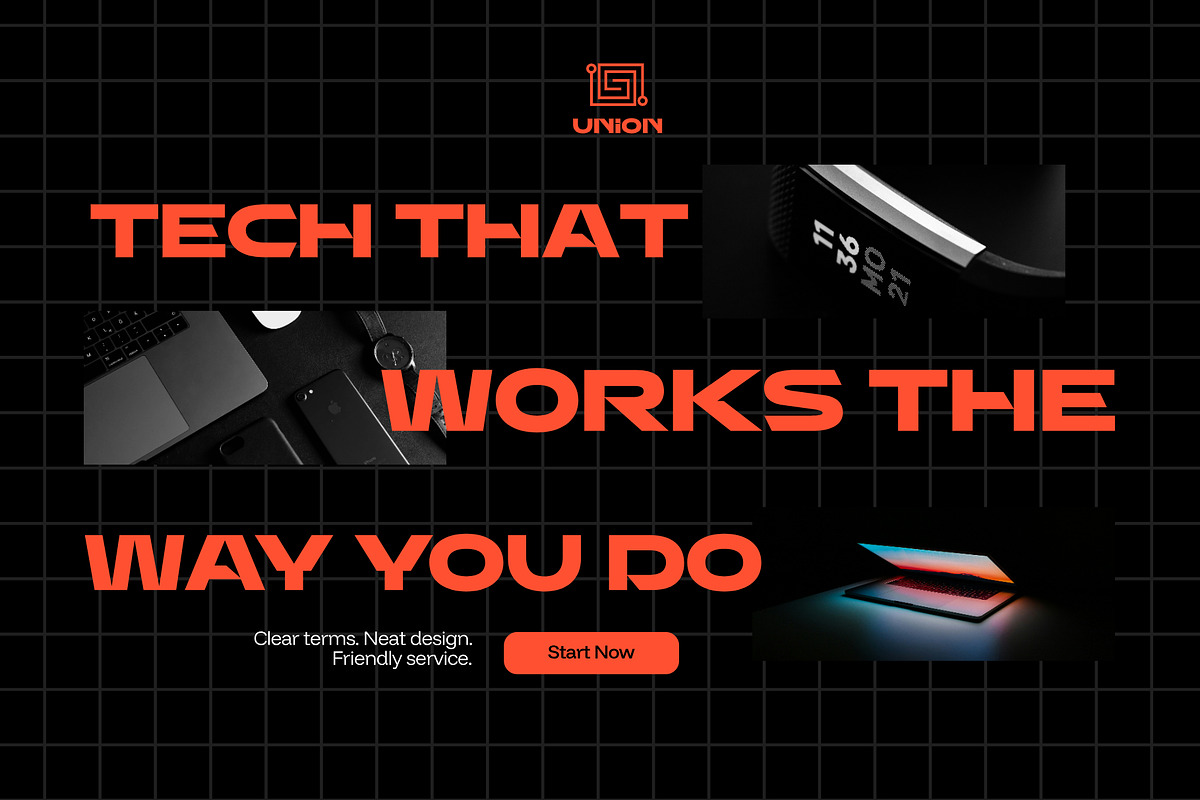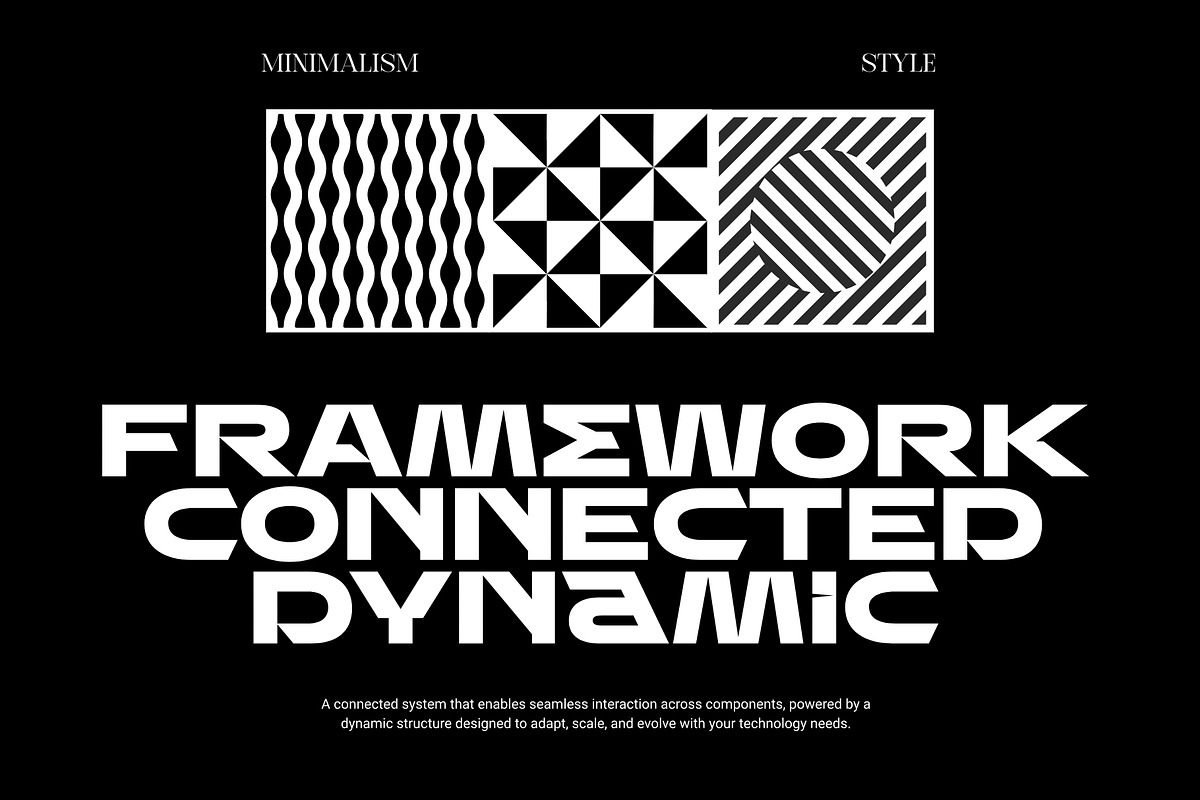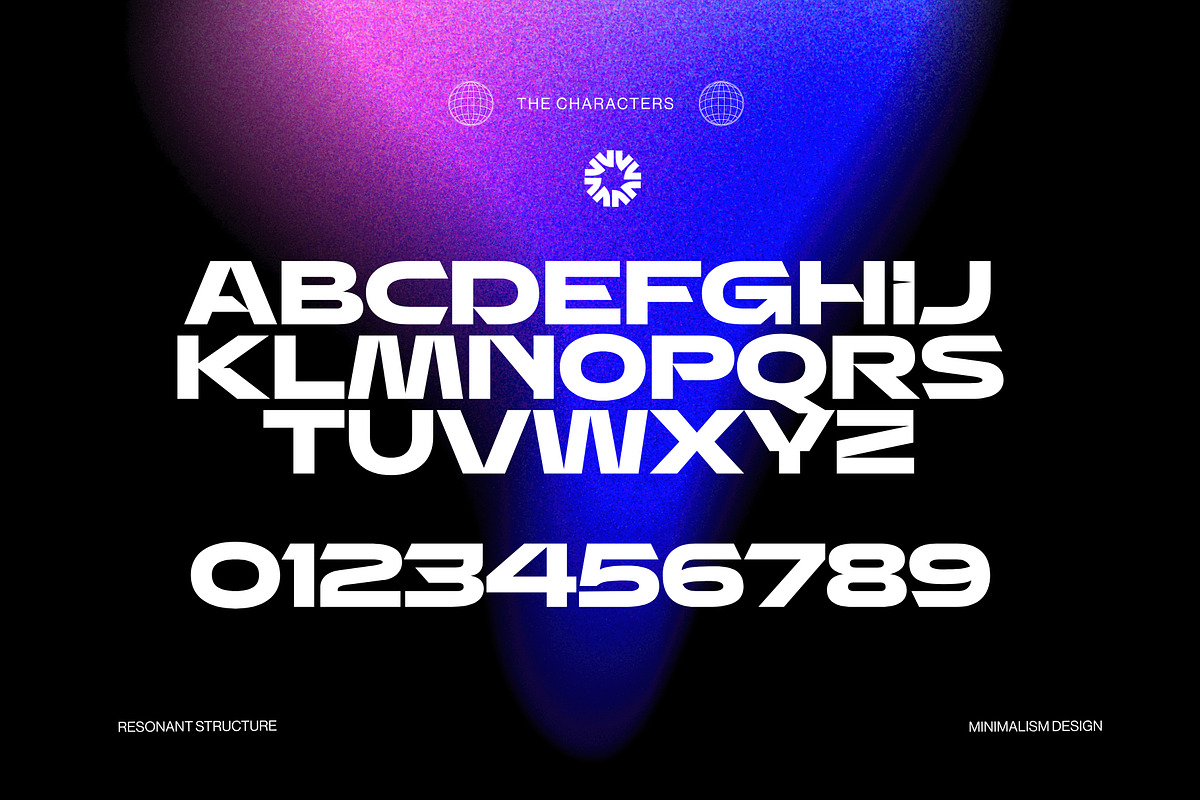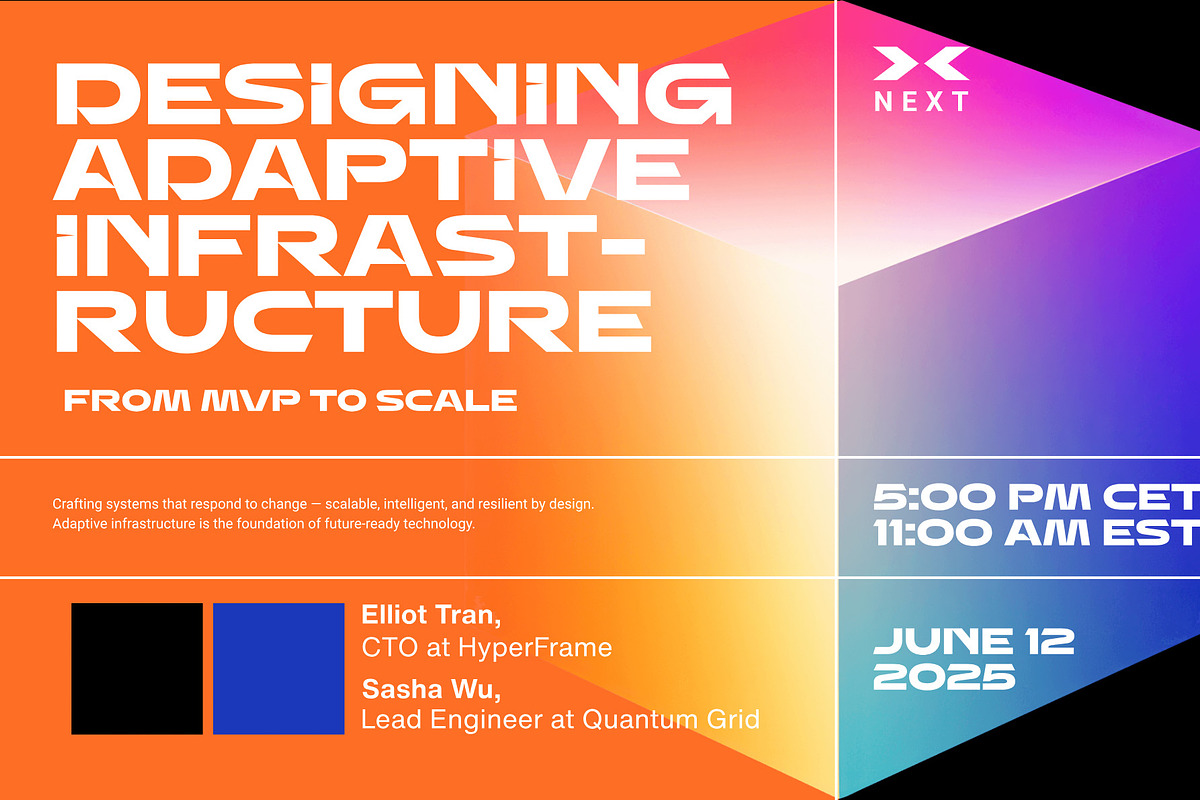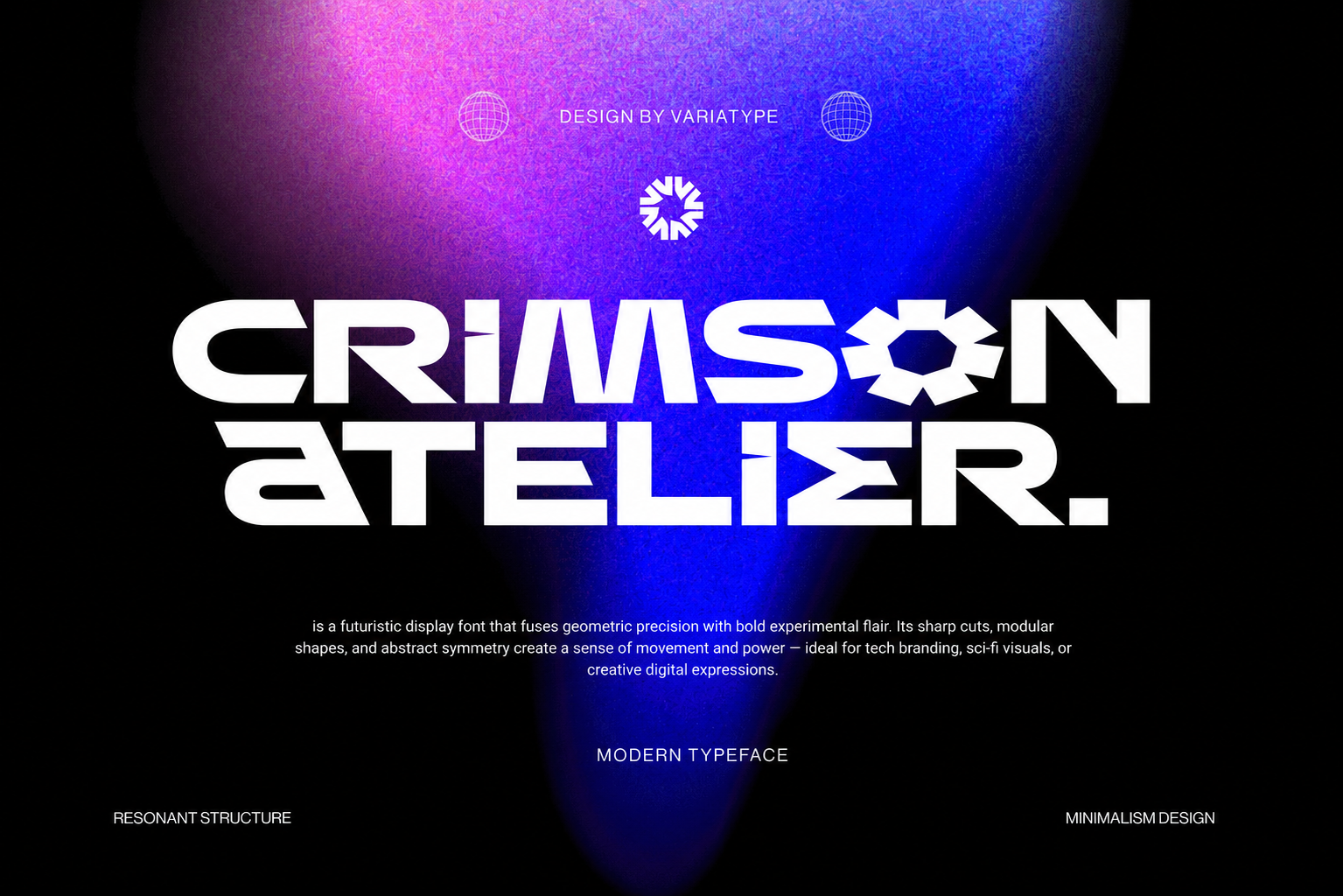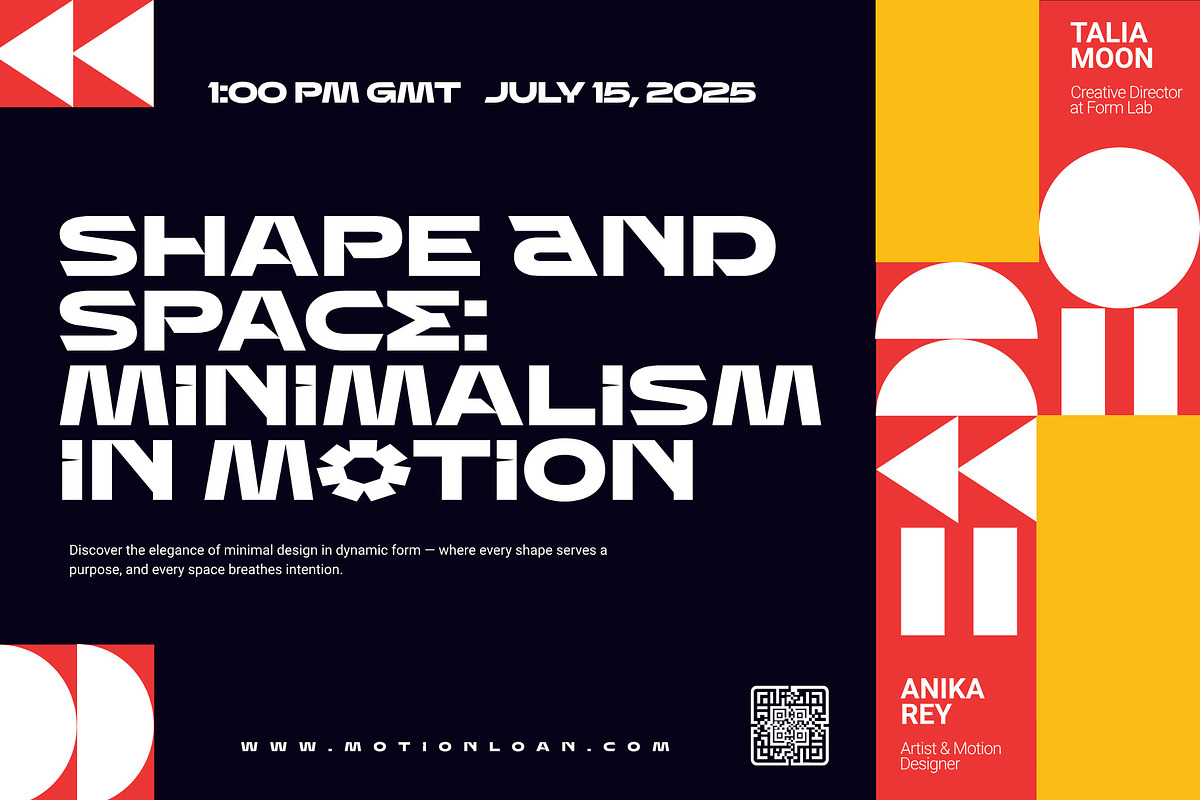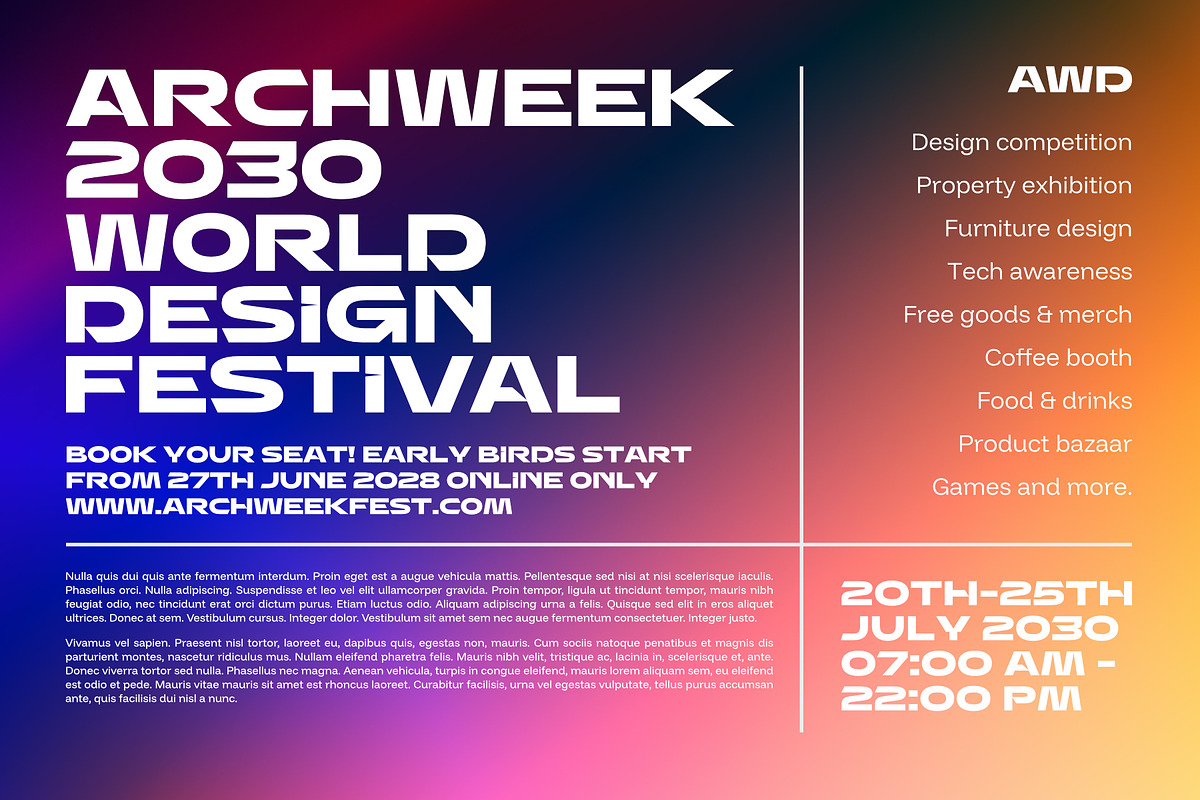
Crimson Atelier - Futuristic Font
Crimson Atelier is a cutting-edge display sans that blends futuristic flair with minimalist precision. Every letter is crafted with clean geometry and bold presence, making it ideal for striking headlines, high-end branding, and modern digital projects. Perfect for designers who want to make a statement with style and clarity, Crimson Atelier shines in posters, logos, websites, and editorial layouts.